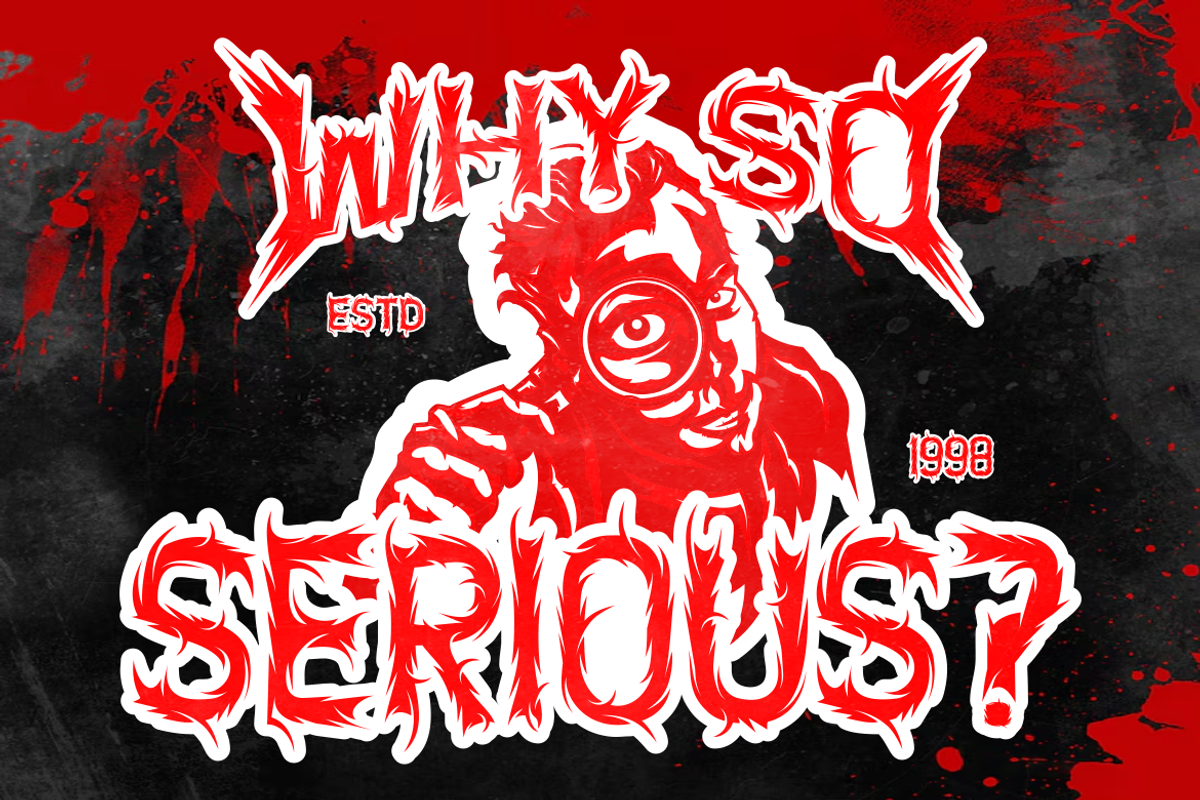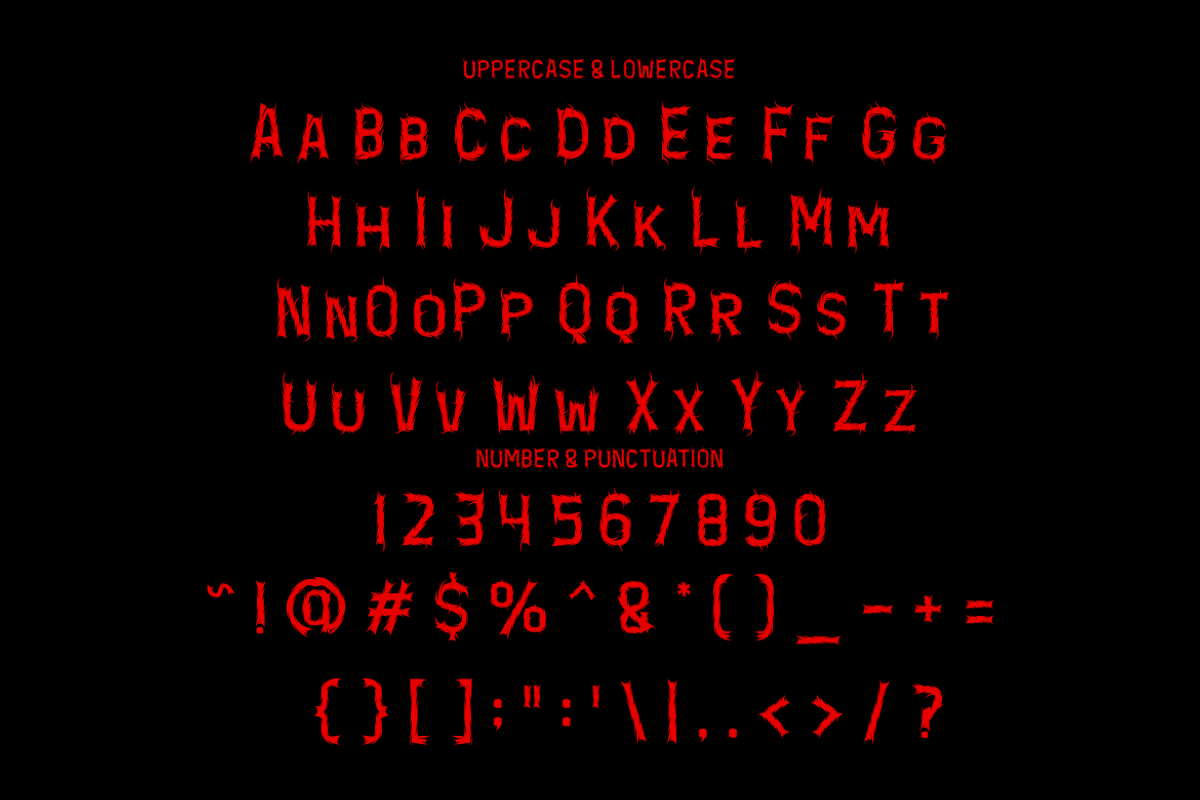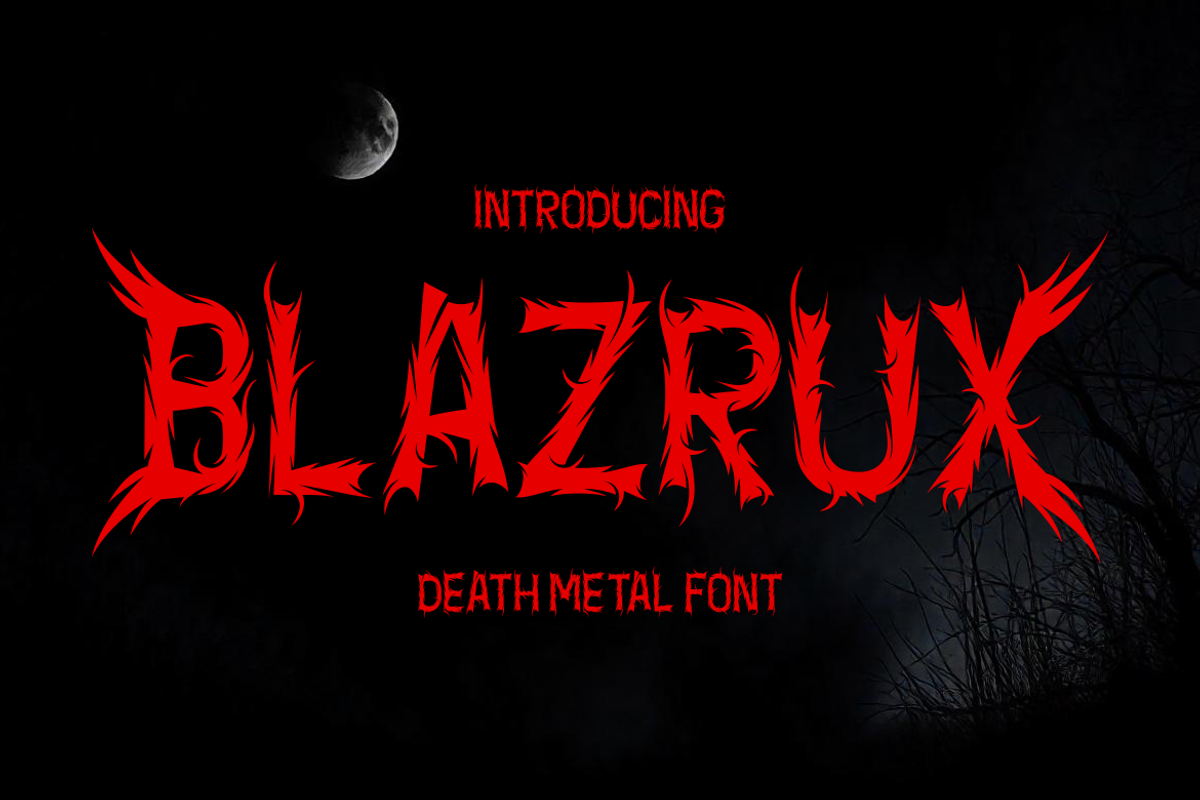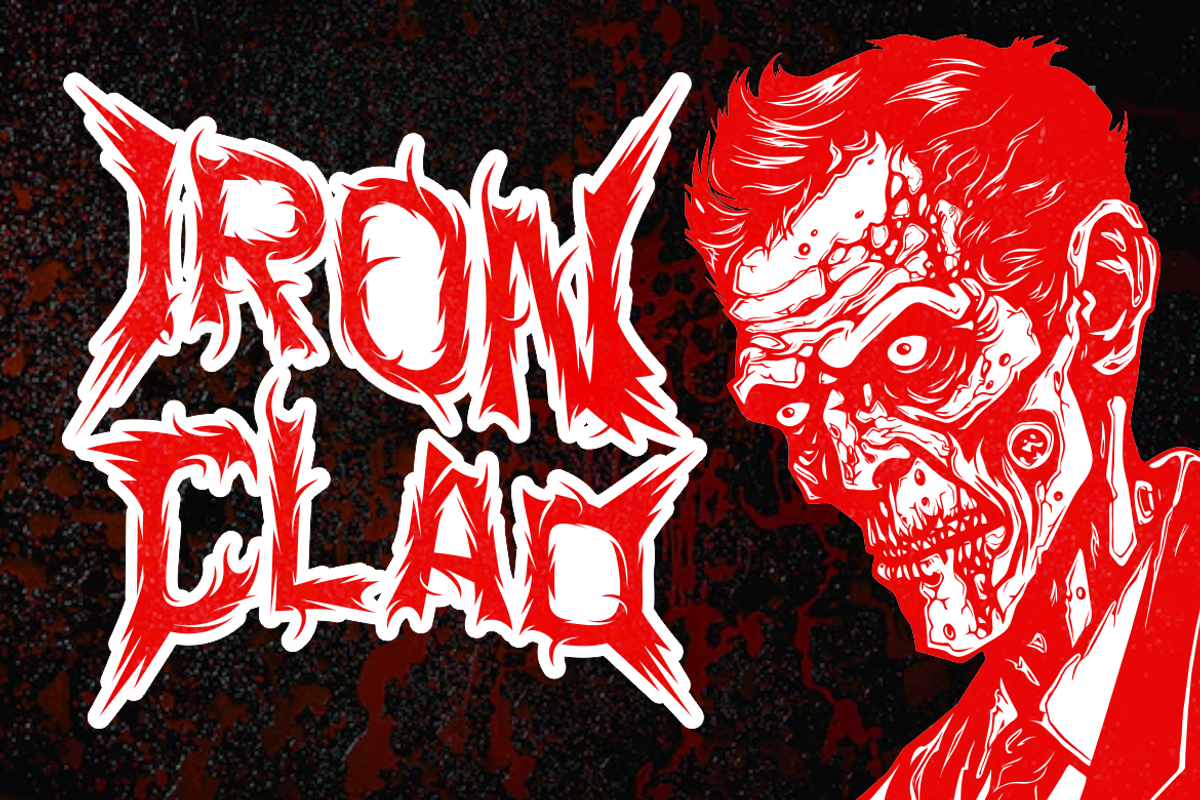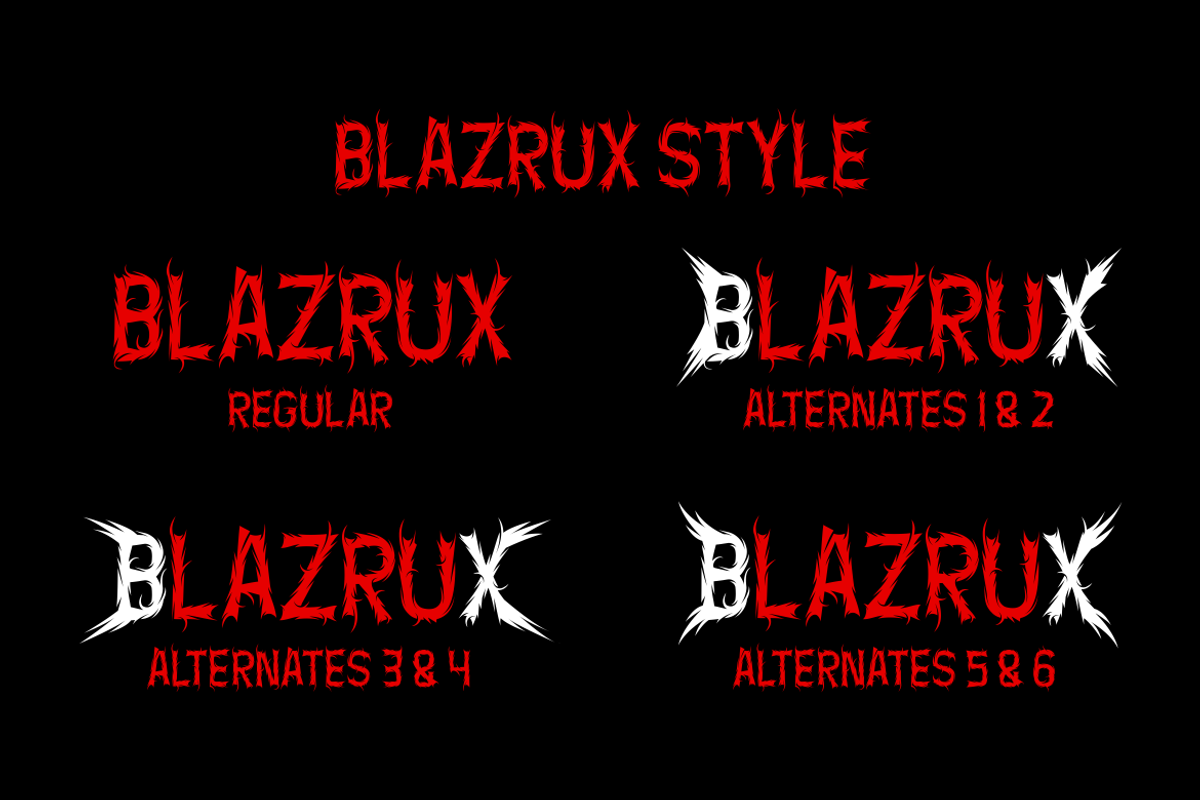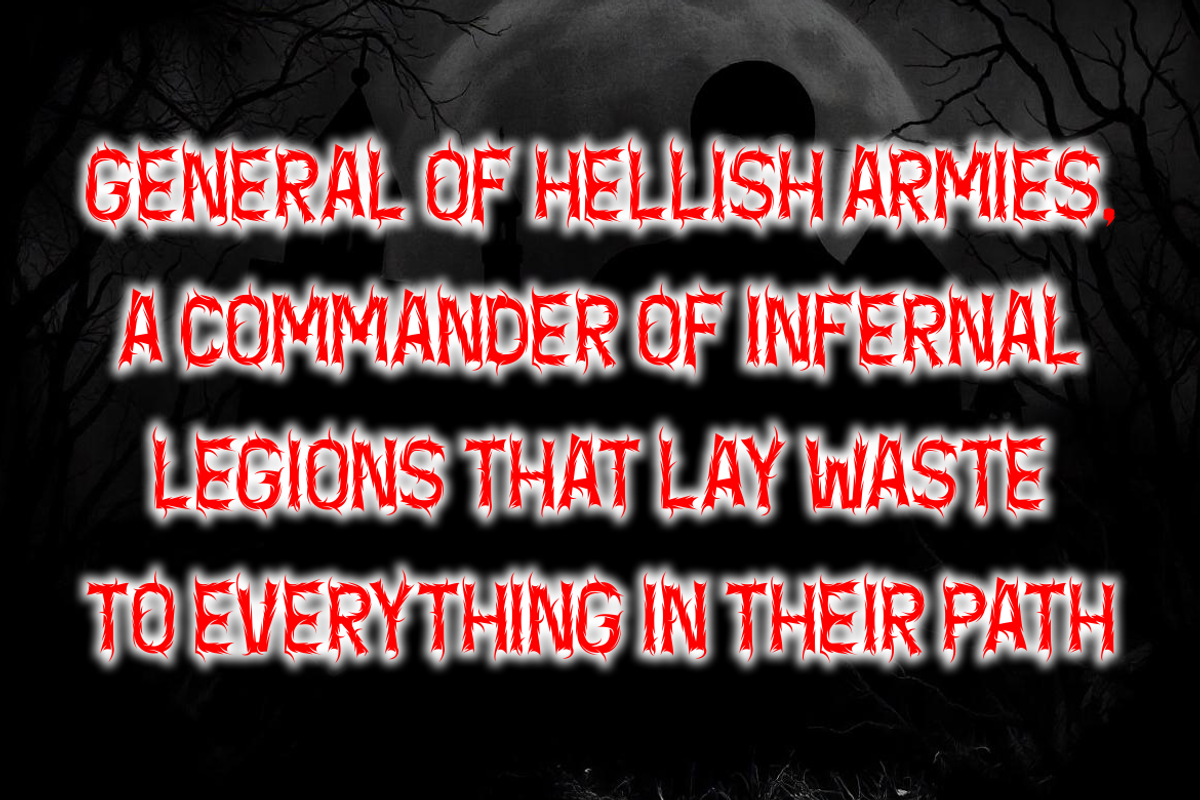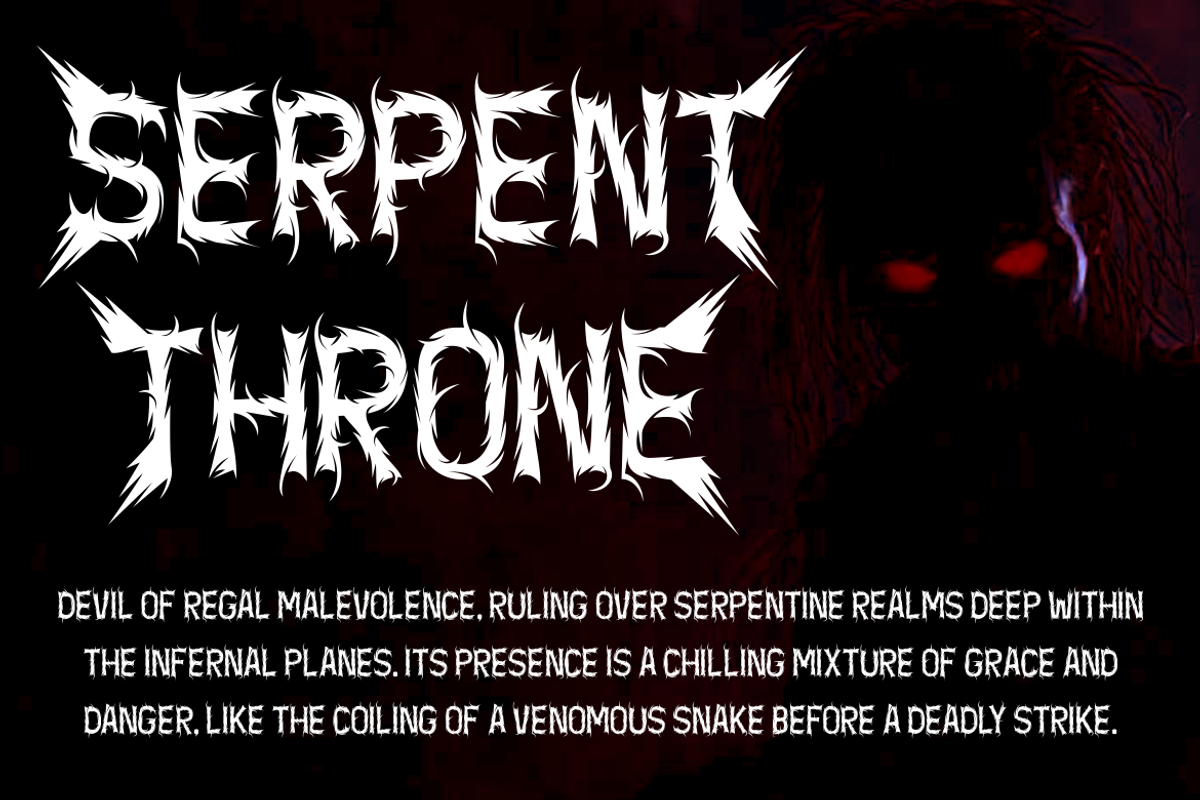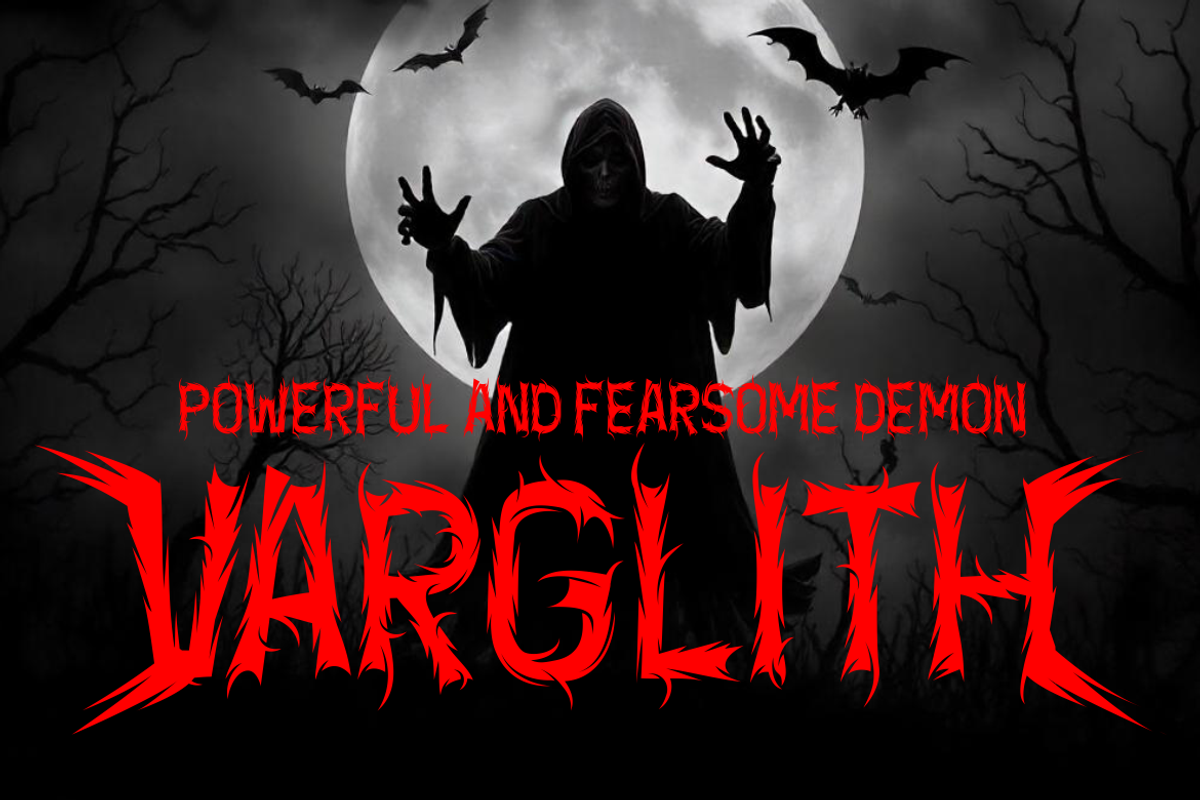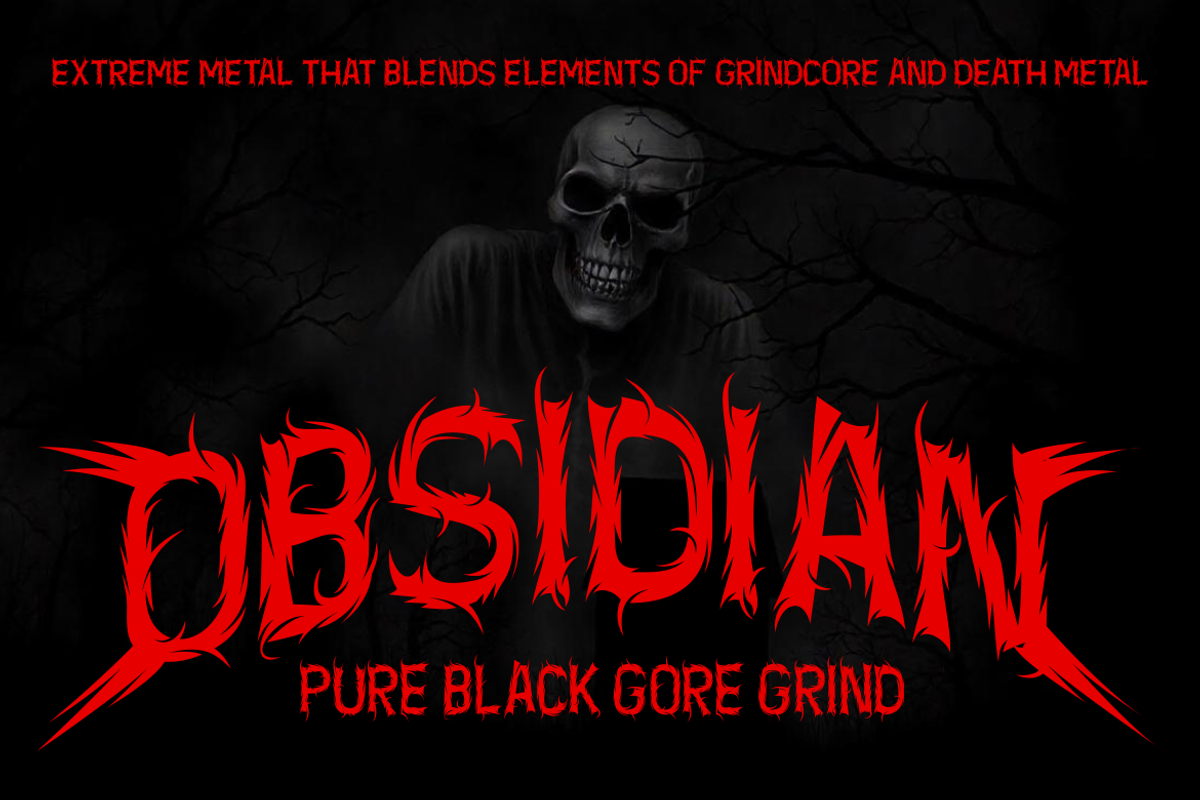
Blazrux - Death Metal Font
Unleash the raw power of Blazrux, a death metal font forged for bold, intense designs that demand attention. With its sharp, claw-like edges and dynamic, jagged strokes, Blazrux captures the essence of metal music’s rebellious spirit and aggressive energy. This typeface stands out with its unique, thorny appearance, making it perfect for band logos, metal music album covers, or event posters that need to convey darkness and intensity. The deep crimson letters showcased in the example, set against a pitch-black, moonlit background, emphasize the menacing and fierce nature of the font. Every character seems to scream with a fierce attitude, ensuring your designs resonate with the raw, unfiltered edge of extreme music culture.
Blazrux isn’t just a font; it’s a statement. Perfect for branding, titles, packaging, and more, this death metal typeface will elevate your creative projects into the realm of the dark and dramatic. Whether you're crafting a heavy metal festival poster, designing gothic apparel, or adding an edgy touch to a film title, Blazrux's spiked and jagged elements bring a feeling of chaos and power. Its versatile design makes it ideal for any project that seeks to embody themes of darkness, rebellion, and intensity. Let Blazrux transform your artwork into a bold declaration of metal mastery.